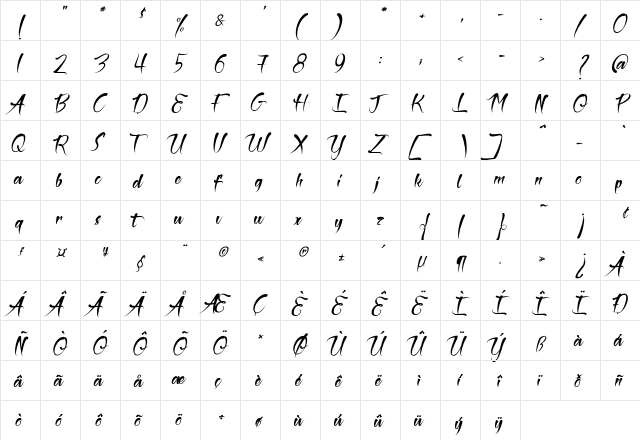
The Black Pearl Semi-Italic
Design Context for The Black Pearl Typeface
The Black Pearl is a composed and adaptable typeface that performs quietly and consistently across a wide range of design contexts. Its italic angle brings a sense of urgency and motion to the letterforms.
Pro Tip: Try The Black Pearl for annotation and caption copy alongside an upright companion — the contrast in angle creates a dynamic but ordered typographic system.